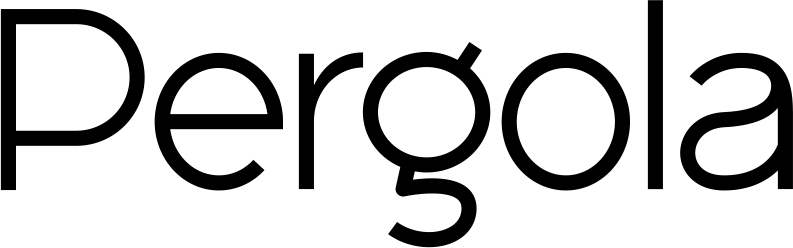
Pergola Font
Just need to have a look to find out its modern sentiments, each letter comes with standards, and a thin readable design while portraying a friendly and approachable image for designing any digital publications; websites…
Just need to have a look to find out its modern sentiments, each letter comes with standards, and a thin readable design while portraying a friendly and approachable image for designing any digital publications; websites, apps, user interfaces, and whatever you want to assemble in a confident arrangement.
Asking for help through this sans serif font to enhance your creativity to set aside the restrictions and write differently with a given distinctive look to any design will be very arousing.